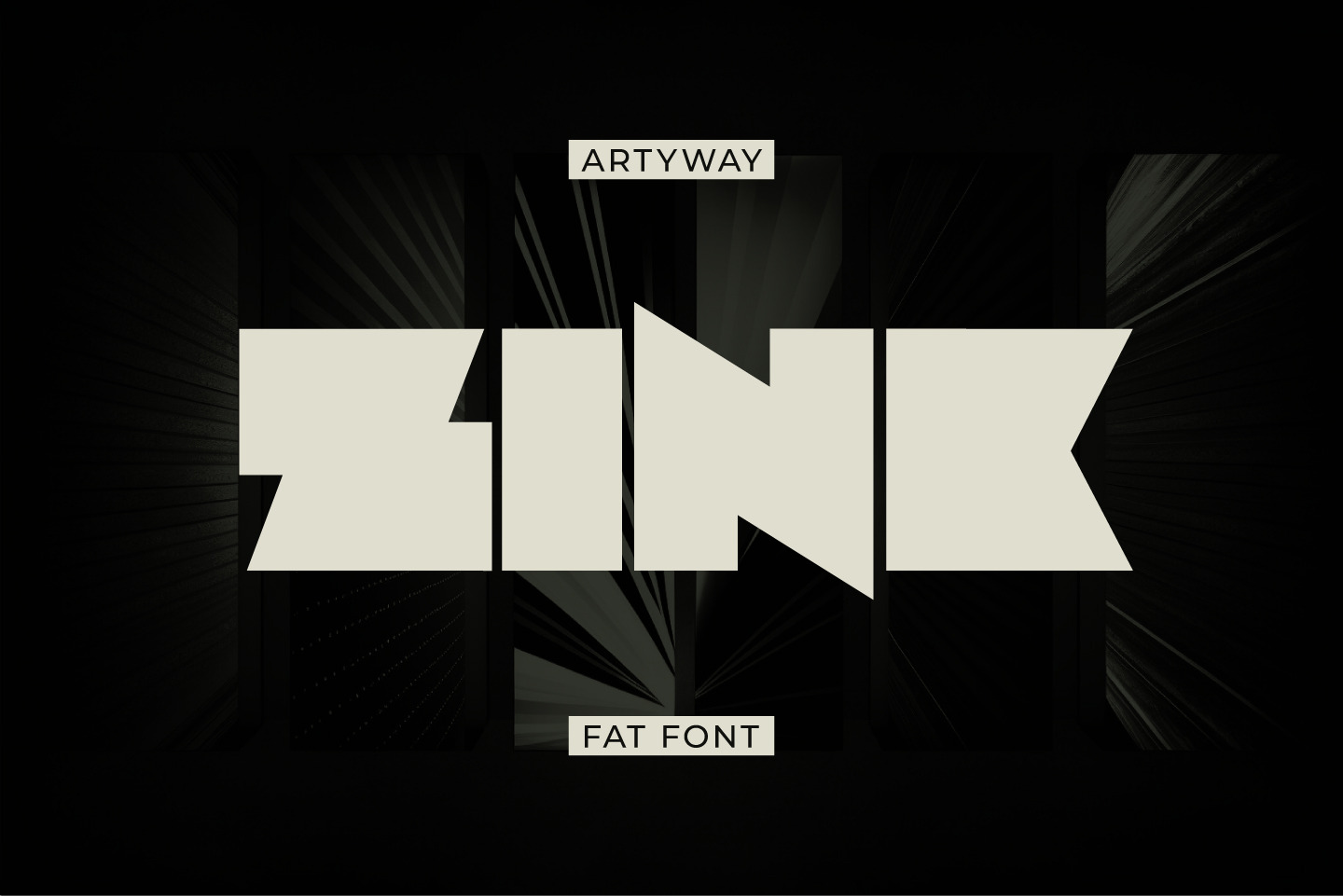
Fat Headline Font
The Zinc font is a typeface characterized by its bold design, with letters that appear to take up more space than traditional fonts. This font is often used for logo, headings, and large titles where emphasis is needed.
The Zinc font is particularly effective at drawing attention to text and conveying a sense of weight and importance. Its thick letters create a strong visual impact.
The Zinc font space font is a popular choice for designers and marketers who want to create eye-catching designs that capture the viewer's attention and communicate a message with impact.